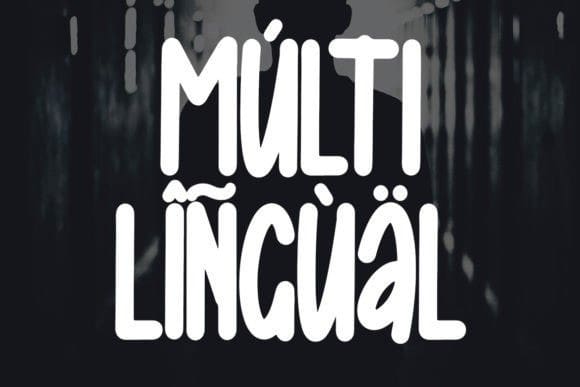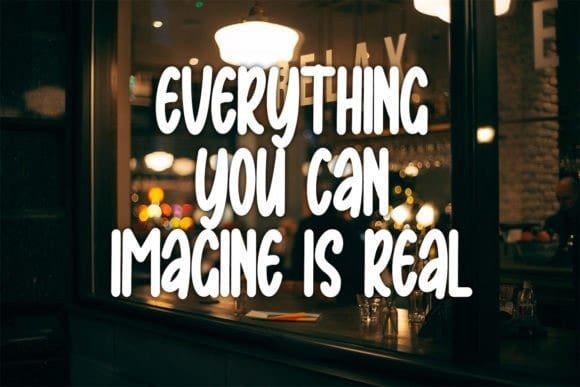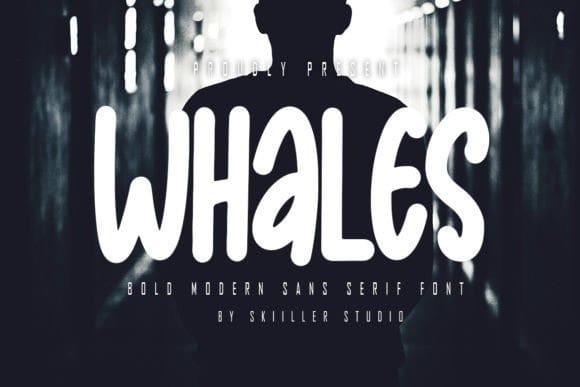
Whales Font
Whales Font is a modern handwritten font, crafted to give your headlines and logotype projects a stylish touch. This font reads as strong, confident, and dynamic and can add tons of character to your designs.